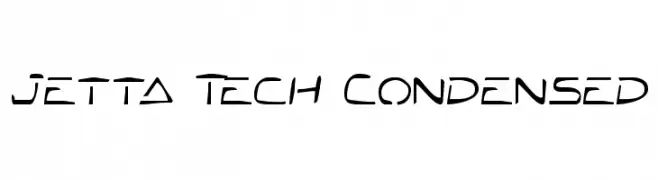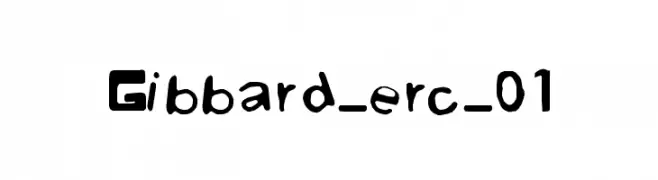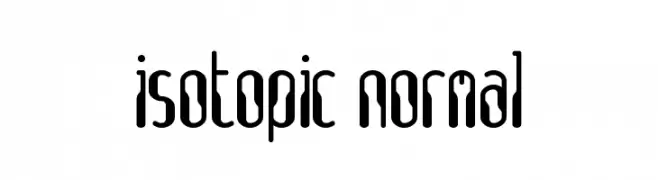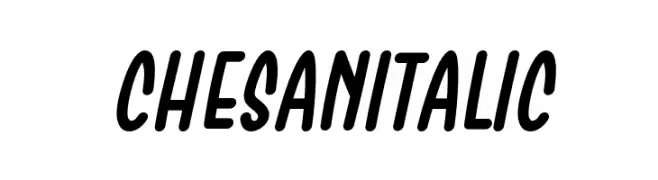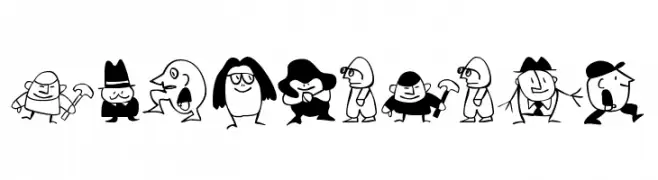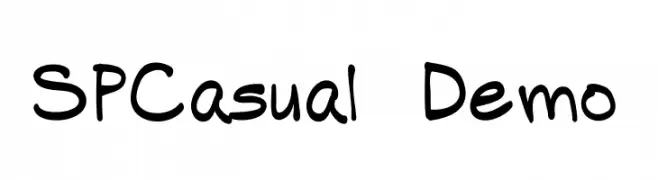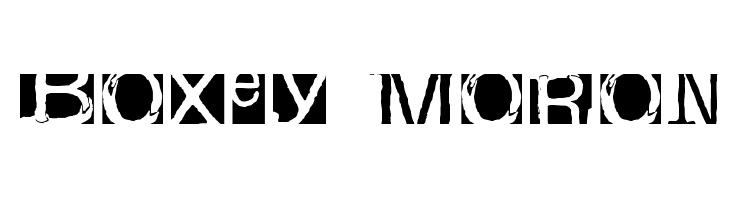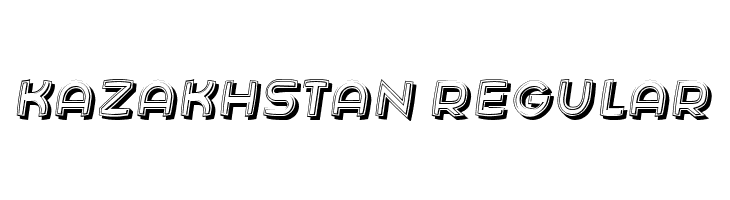
A bold, decorative font with intricate patterns and a vintage flair.
A rugged, textured font with a hand-drawn, distressed style.
A bold, playful font with a distressed, artistic style.
A bold, geometric font with a modern, tech-inspired aesthetic.
A bold, italicized font with smooth curves and dynamic style.
A playful, hand-drawn font with cartoon-like characters.
A casual, handwritten font with a playful and friendly style.
A handcrafted, artistic font with irregular shapes and bold contrasts.